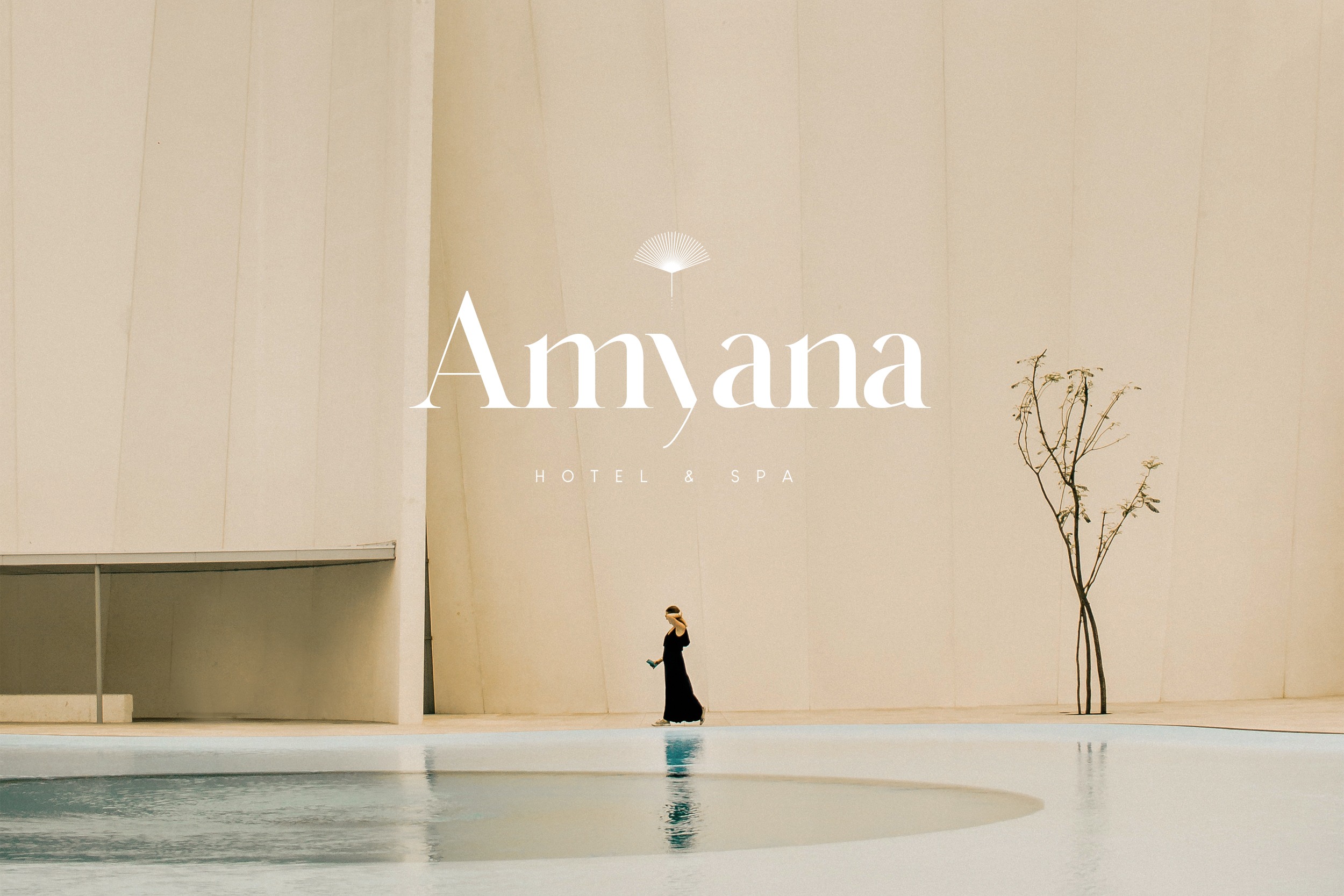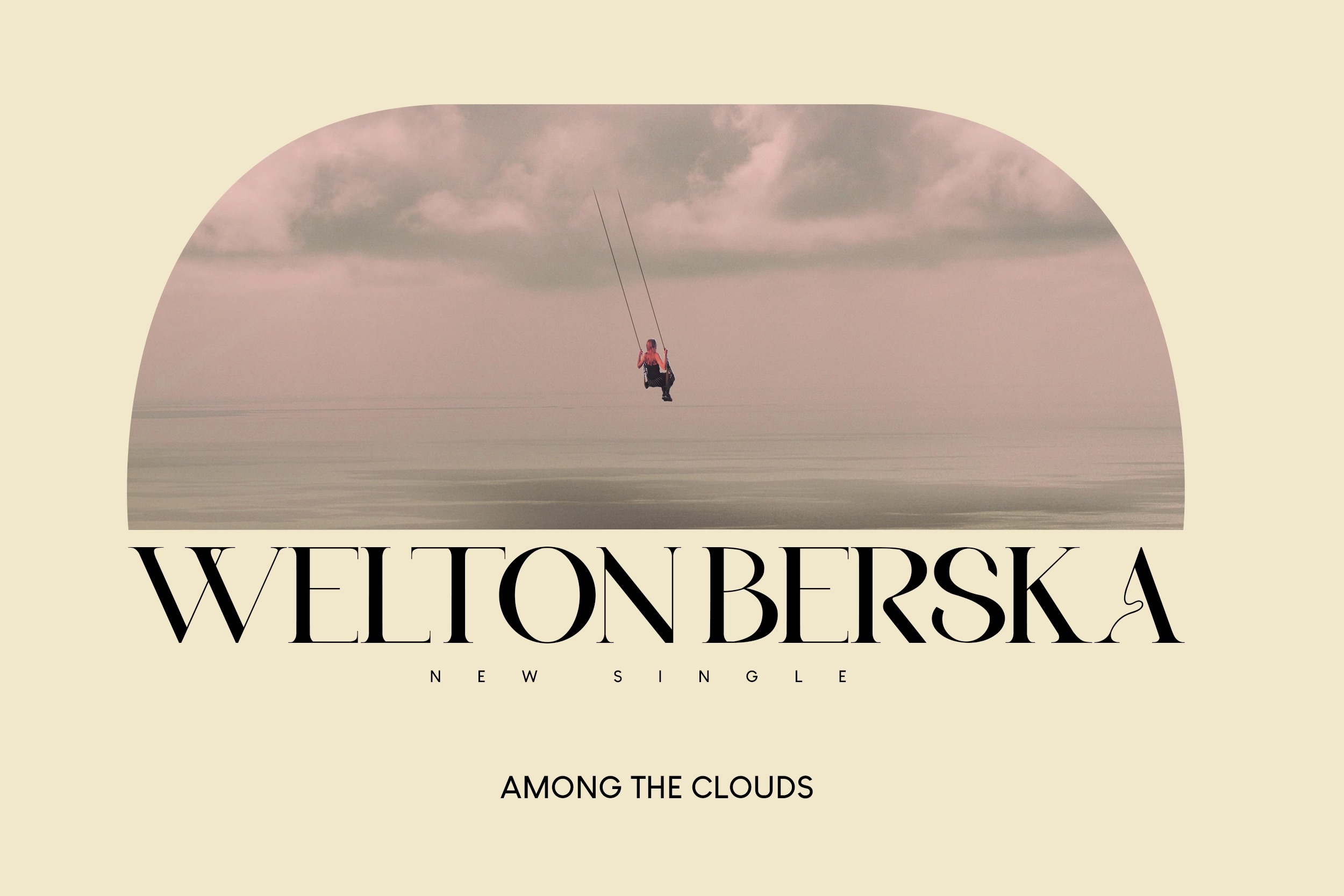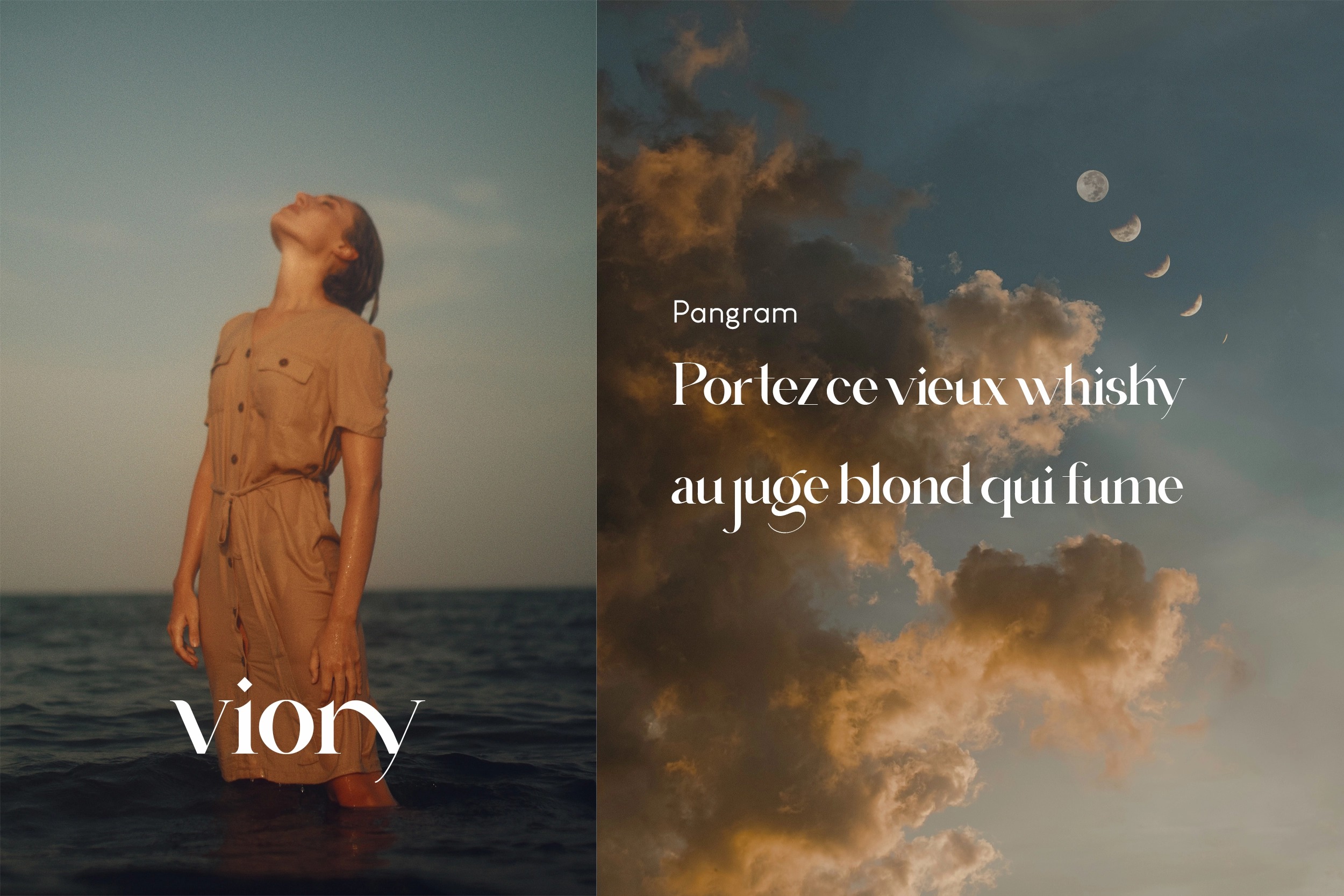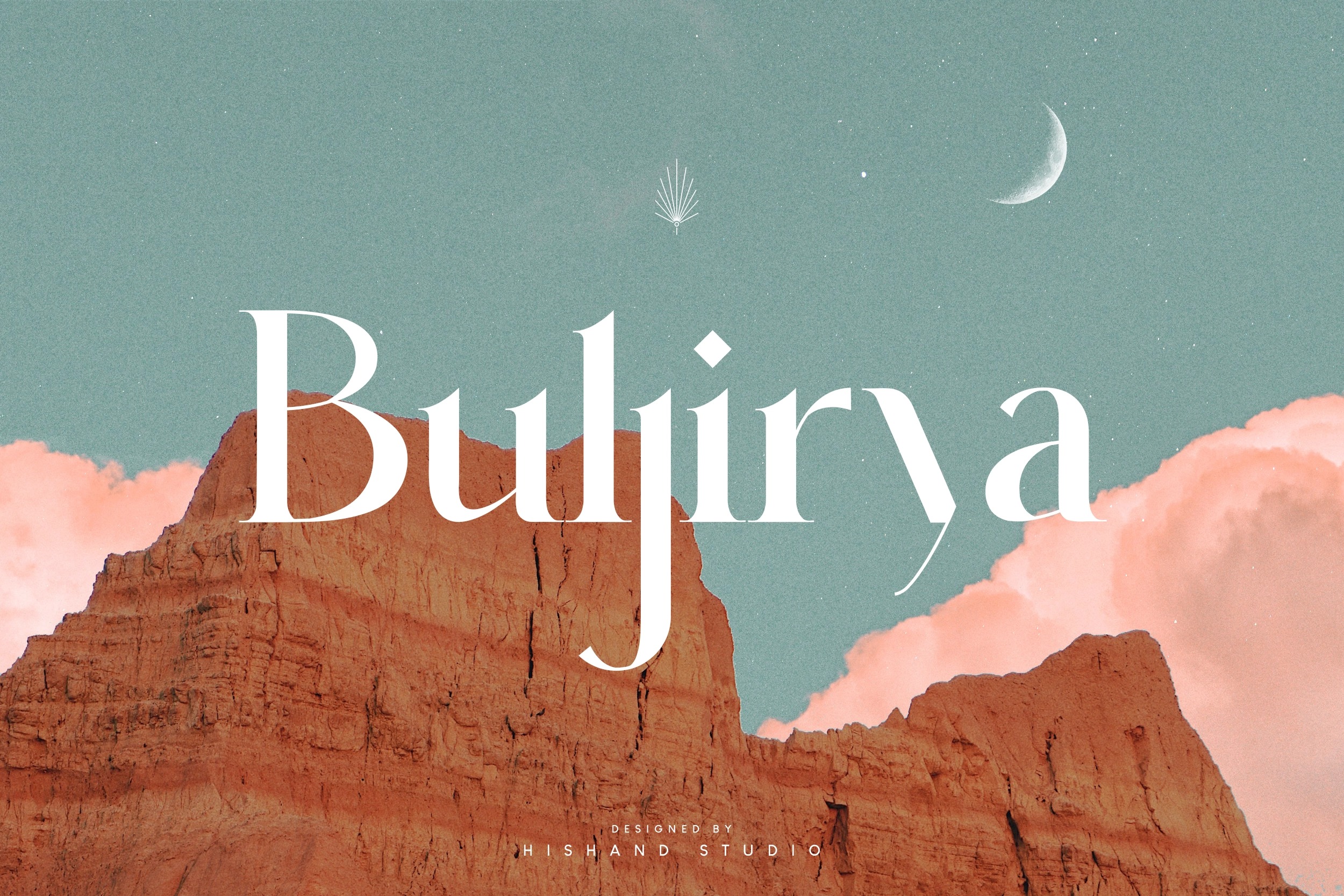
Buljirya Font
Buljirya Serif Font
This is a new display serif typeface with nicely balanced curves, tons of alternative characters, ornaments, multilingual support, and unique ligatures. It is dream inspired and pastel colors combine with elegance. Perfect for Logo, product packaging, advertisement, social media post, fashion brand, magazine headers and many more.